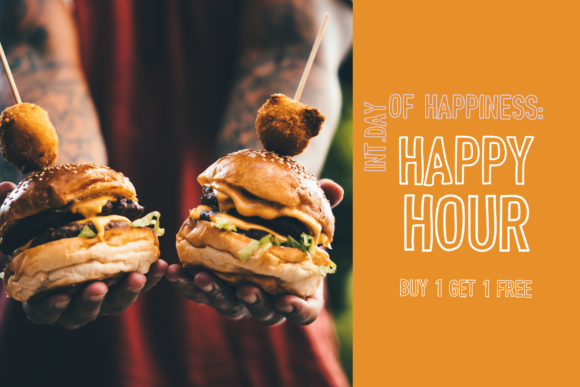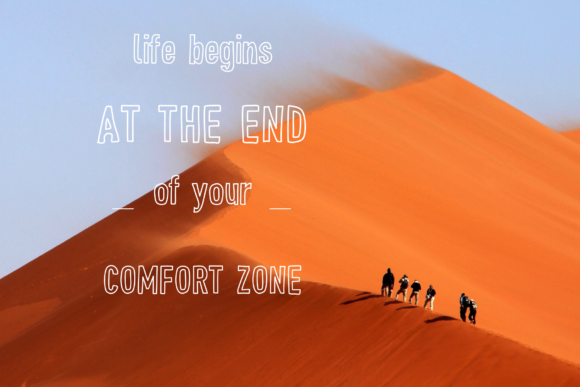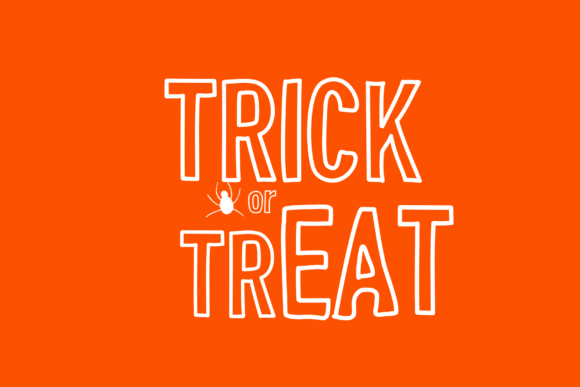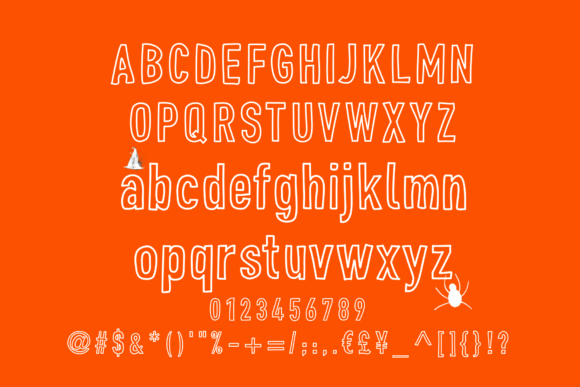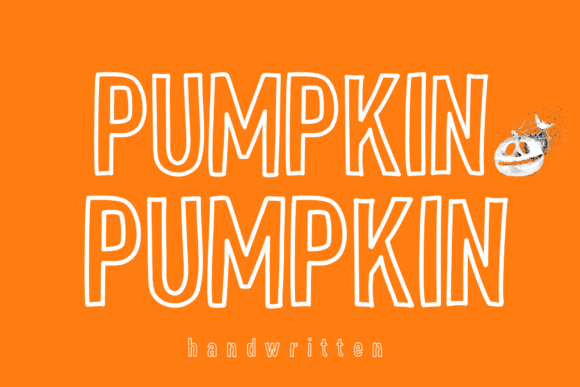
Introduction to Pumpkin Font
Have you ever been working on a creative project and suddenly, the perfect font eludes you? You scroll through design resources, searching for that one element that will make your project truly stand out. I’m sure you’ve been there – the frustration of finding a font that’s almost, but not quite, perfect.
That’s where Pumpkin Font comes in – a bold and authentic display font that’s sure to elevate your creative ideas. With its unique style and high-quality design, this font is a must-have for any designer looking to add a touch of personality to their work.
Pumpkin Font
- Unique Hand-Drawn Design: This font features a whimsical, hand-drawn design perfect for creative projects that require a personal touch.
- Perfect for Seasonal Designs: The Pumpkin Font is ideal for seasonal designs, such as Halloween and fall-themed projects, thanks to its autumnal aesthetic.
Honest Review: Pumpkin Font
I recently stumbled upon the Pumpkin Font, and I must say, it’s a great addition to my design resource collection. The font is perfect for creative projects that need a playful, whimsical touch. One of the things that works well about this font is its unique design ✨ – it’s not your run-of-the-mill sans-serif or serif font. The character set is extensive, making it a great option for designers who want to add some personality to their work.
Some limitations of this font include:
- It may not be suitable for formal or professional projects
- The font may be a bit too playful for certain design contexts
Overall, I’m impressed with the Pumpkin Font. It’s a high-quality design resource that’s perfect for designers who want to add a little creativity to their work. With its unique design and extensive character set, it’s a great option for anyone looking for a fun and playful font.
Pumpkin Font
Tips for Getting the Most Out of Pumpkin Font
Pumpkin Font is a high-quality design resource that can add a unique touch to any creative project. To get the most out of it, use it in conjunction with other design elements such as images and graphics. You can also experiment with different font sizes, colors, and styles to create a unique look.
Pumpkin Font is a versatile design resource that can be used in a variety of contexts, including:
- Creative projects such as posters, flyers, and brochures
- Branding and marketing materials such as logos and business cards
- Web design and development projects